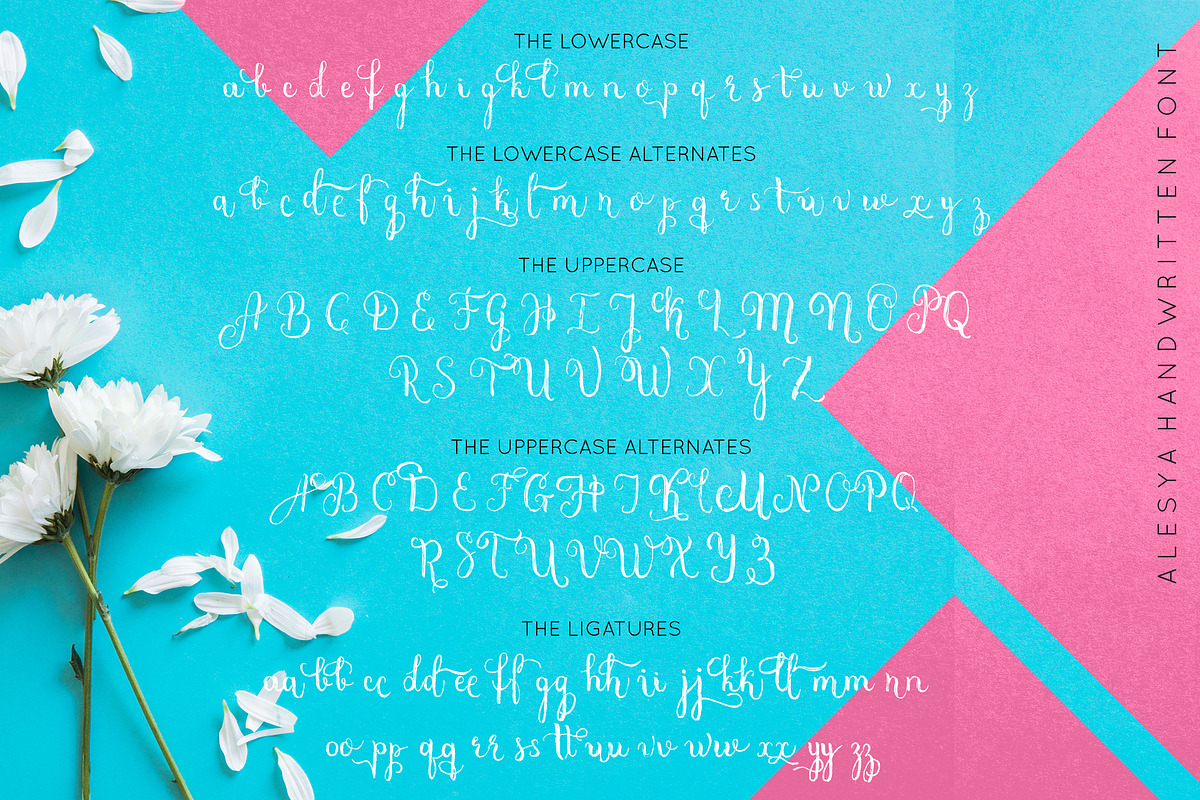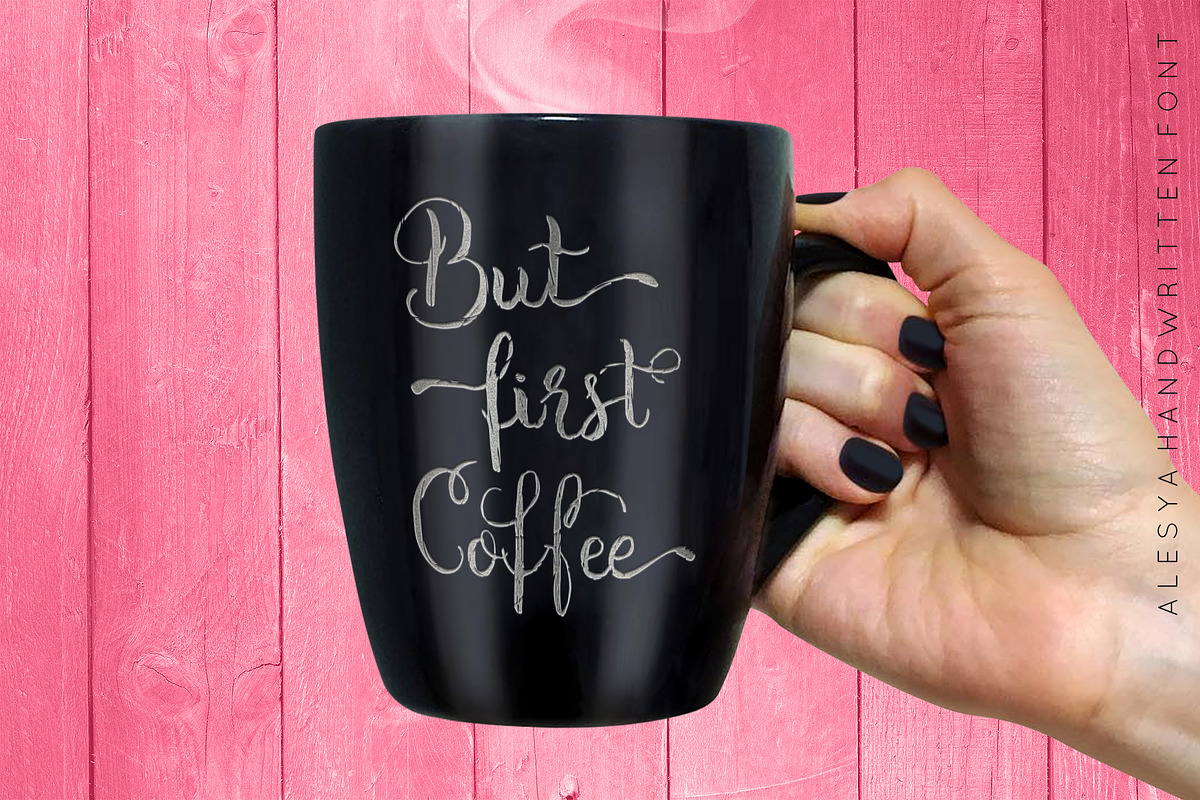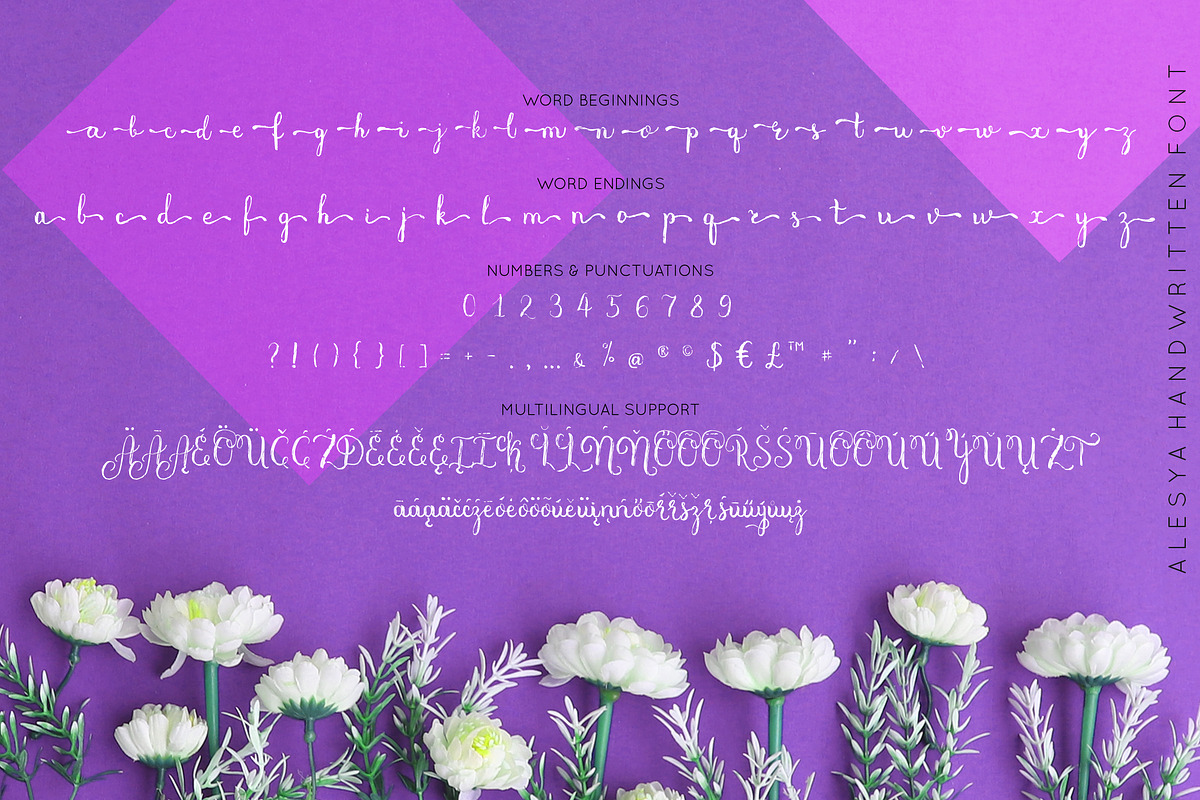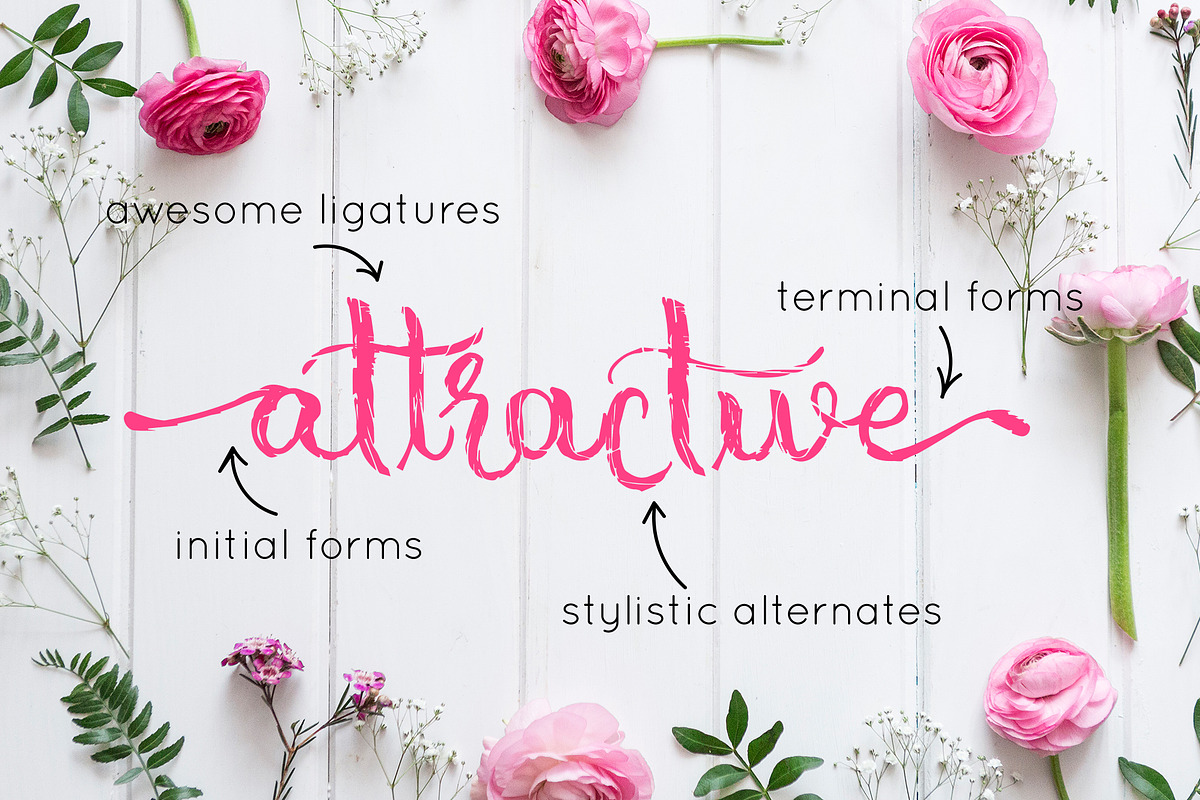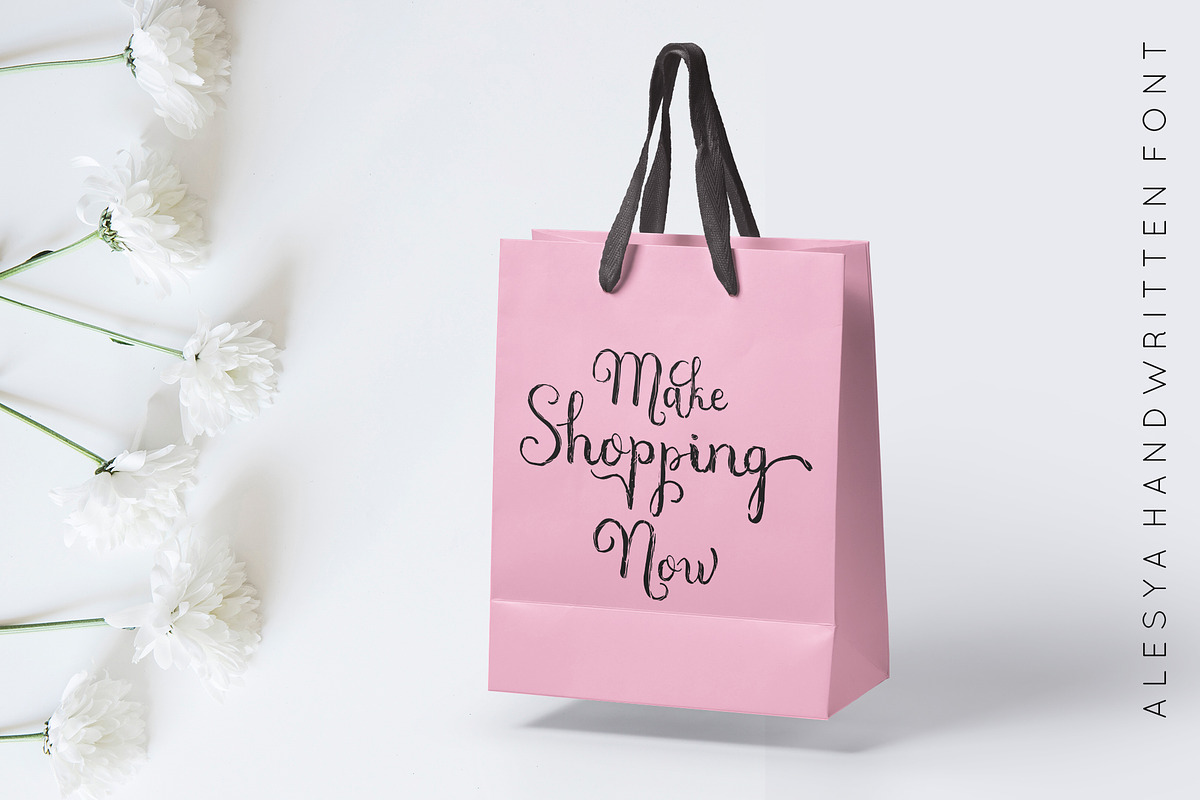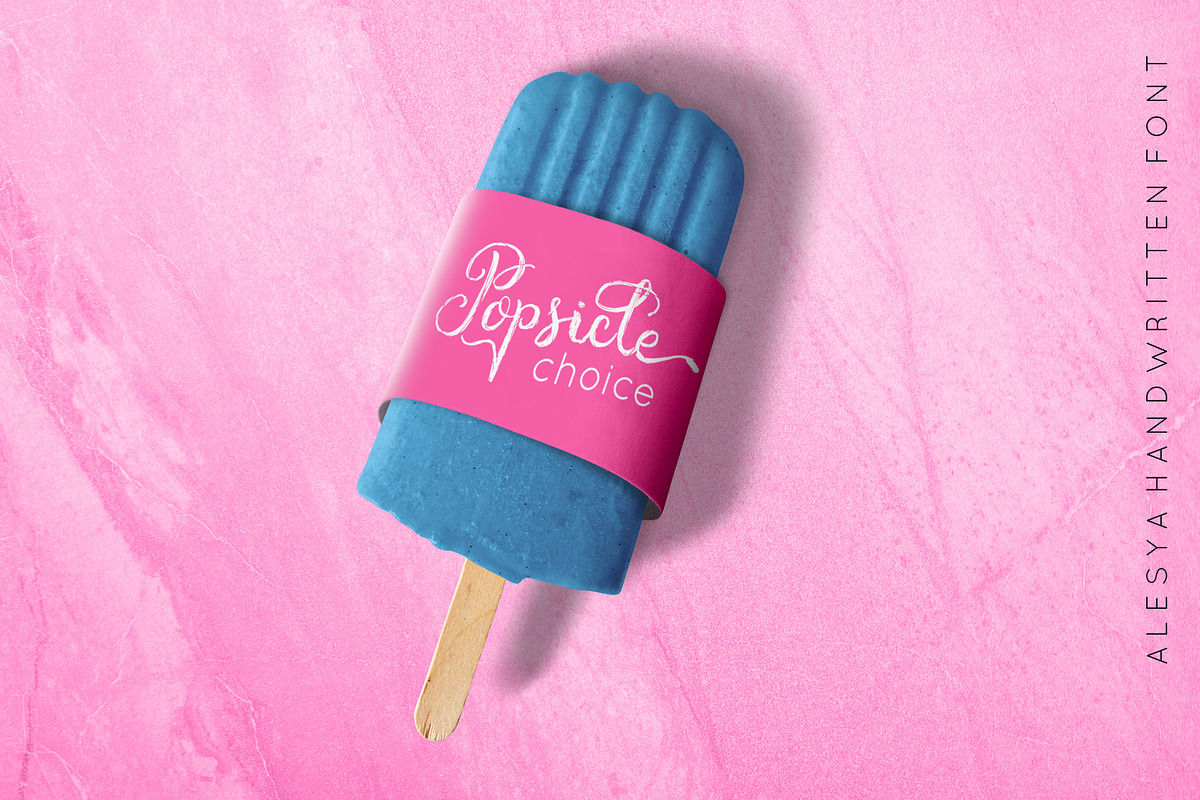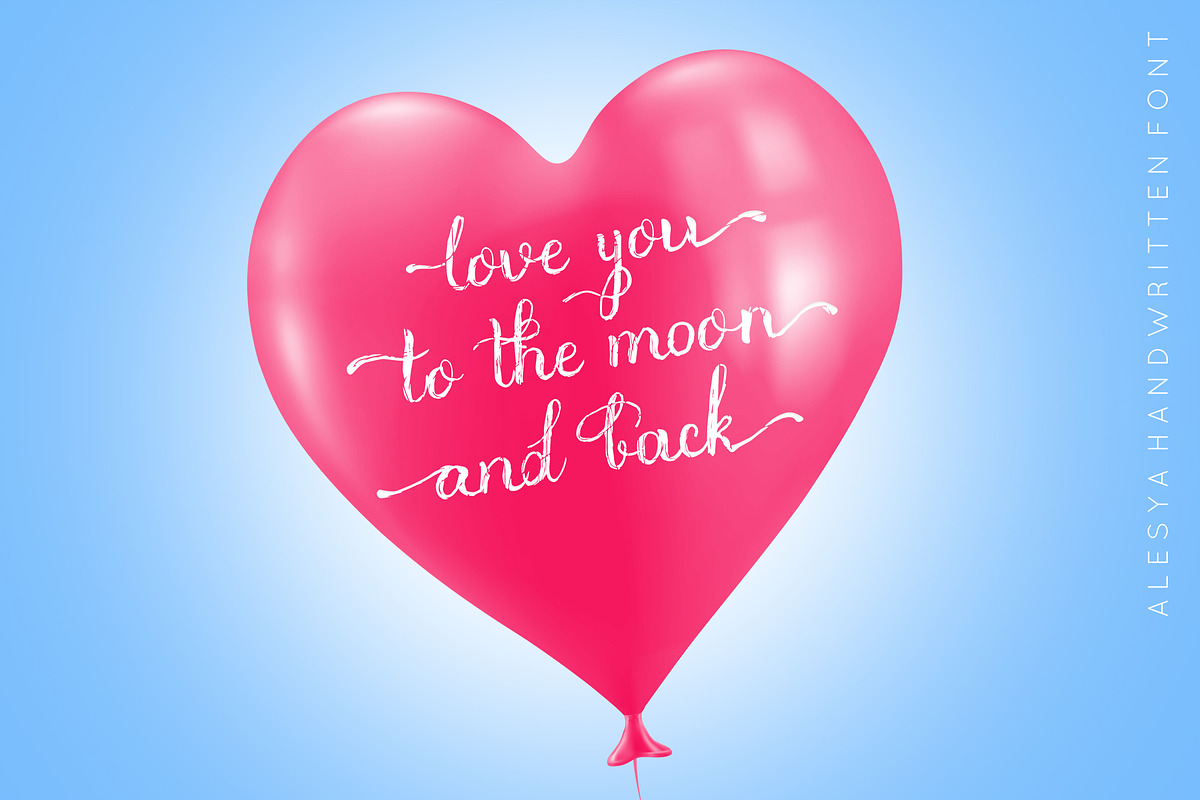
Alesya hand written font
Do you need something awesome for modern girly holiday design? So my new textured hand written font Alesya is just for you! So create something beautiful, trendy and creative with Alesya font!
Alesya font works great in instagram posters, logos, headlines, packaging, advertising, branding and so much more. This font will easily help you to create the best urban or rustic, elegant or dynamic designs.
Alesya font has uppercase and lowercase characters, numbers and punctuations, alternates and ligatures.
Alesya Font supports the following languages: English, Finnish, French, German, Italian,Norwegian, Portuguese, Spanish, Swedish, Swiss German.
Alesya hand written font by Anna Zakharchenko fits naturally into Branding, posters, packaging, typography.